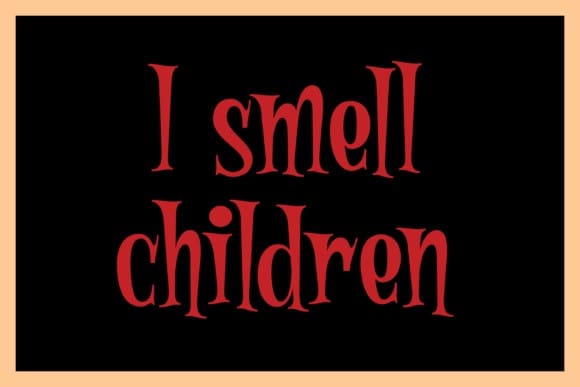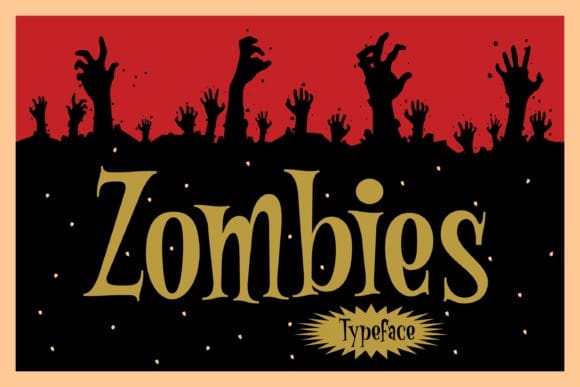
Zombies Horror Font
Zombies Horror Font is a classic retro horror font that brings playful nostalgia to your designs. With simple serif and bouncing design, you can use it not only for horror themed designs but also for designs that need classic vintage touch. This font has ligatures feature to make it more unique in your designs. Whether you’re creating poster, book cover, children book, merchandise, stickers, apparel, craft, invitations, or simply want to infuse some retro joy into your designs, zombies font is perfect choice for your designs. This font is PUA encoded which means you can access all of the amazing glyphs and ligatures with ease!